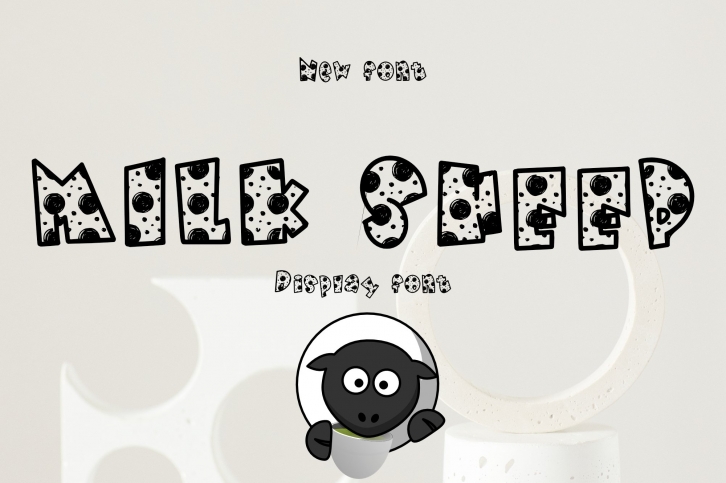
Milk Sheep is a trendy and unique font with an authentic style. It was designed by cocodesign and it's a great choice for creative people who need such a font. It was released on July 1, 2022 and the file size is 11.95 MB. Milk Sheep will add an organic vibe to any design idea!